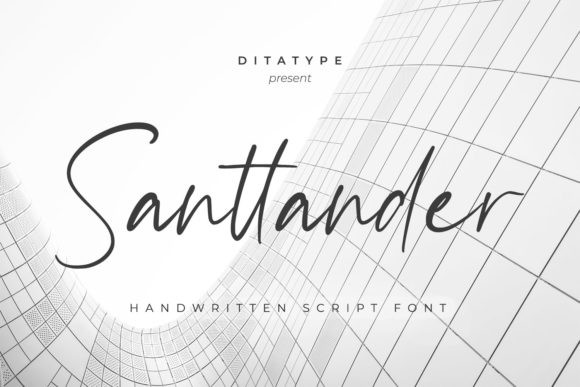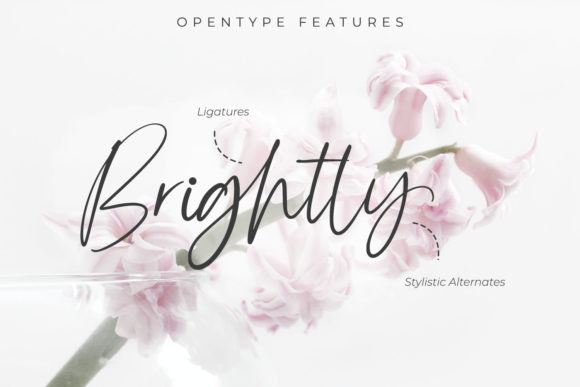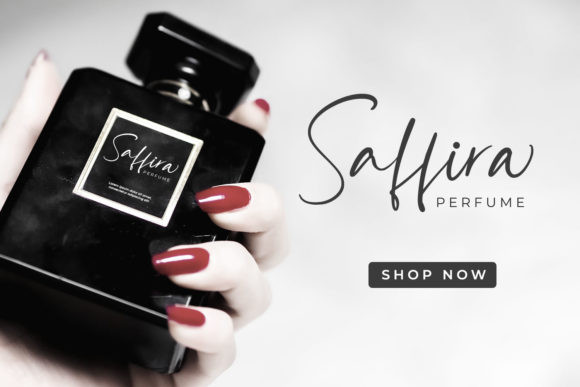
Santtander Font
Santtander is an incredibly relaxed and timeless handwritten font. It is PUA encoded which means you can access all of the glyphs and swashes with ease! It features a varying baseline, smooth lines, gorgeous glyphs and stunning alternates. Fall in love with its incredibly versatile style and use it to create gorgeous wedding invitations, beautiful stationary art, eye-catching social media posts, and much more!